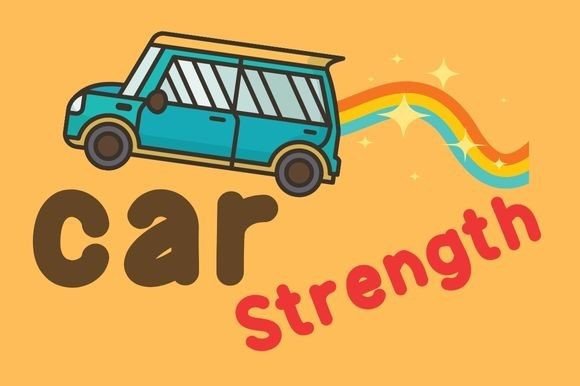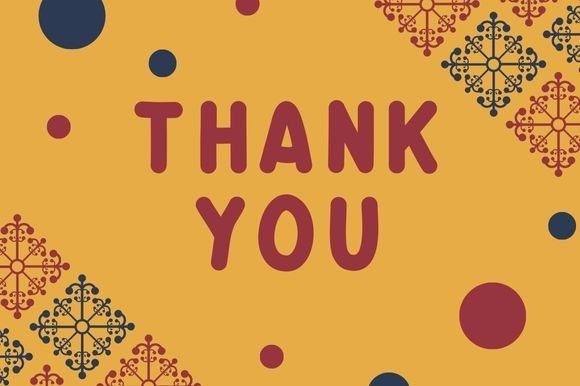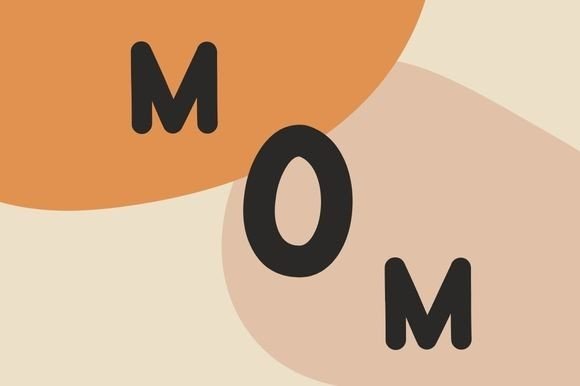
Introduction to Pennsy Font
As designers, we’ve all been there – staring at a blank canvas, trying to come up with the perfect idea for a project. But sometimes, it’s the smallest details that make all the difference. For me, that detail was discovering the Pennsy Font. This quirky display font has a way of adding a touch of whimsy to any design, and I couldn’t wait to dive in and explore its possibilities.
With its unique, hand-drawn feel and transparent background, the Pennsy Font is a treasure trove of creative potential. Whether you’re working on a free download for a client or a high-quality design resource for a major brand, this font is sure to add a layer of depth and personality to your work. And the best part? It’s free to download, making it a valuable addition to any designer’s toolkit.
Key Features of Pennsy Font
- Unique, hand-drawn design with a vintage touch, perfect for creative projects that require a personal touch.
- High-quality font with transparent background, ideal for use on various backgrounds and design elements.
- Perfect for designers, artists, and creatives working on projects that require a unique, high-quality font with a vintage aesthetic.
Honest Review: Pennsy Font
I recently stumbled upon the Pennsy Font, and I must say it’s been a game-changer for my design projects. The high-quality font is a fantastic addition to any creative project.
- ✨ High-quality design: The Pennsy Font is beautifully crafted with attention to detail, making it a great choice for any design project.
- ✨ Versatile usage: This font can be used for a wide range of creative projects, from logos to brochures, and even websites.
- ⚠️ Limited font weights: While the Pennsy Font is a great choice, it’s available in only a few font weights, which may limit its usage in certain design projects.
- ⚠️ Transparent background: The font’s transparent background can be a bit tricky to work with, especially if you’re not familiar with using transparent backgrounds in your designs.
Overall, I’m really impressed with the Pennsy Font. It’s a fantastic design resource that’s perfect for designers working on high-quality creative projects. With a bit of creativity, you can work around its limitations and achieve amazing results.
Pennsy Font is ideal for creative projects, such as branding, marketing materials, and digital art. Its high-quality design makes it suitable for a variety of design needs, from logos to graphics and more.